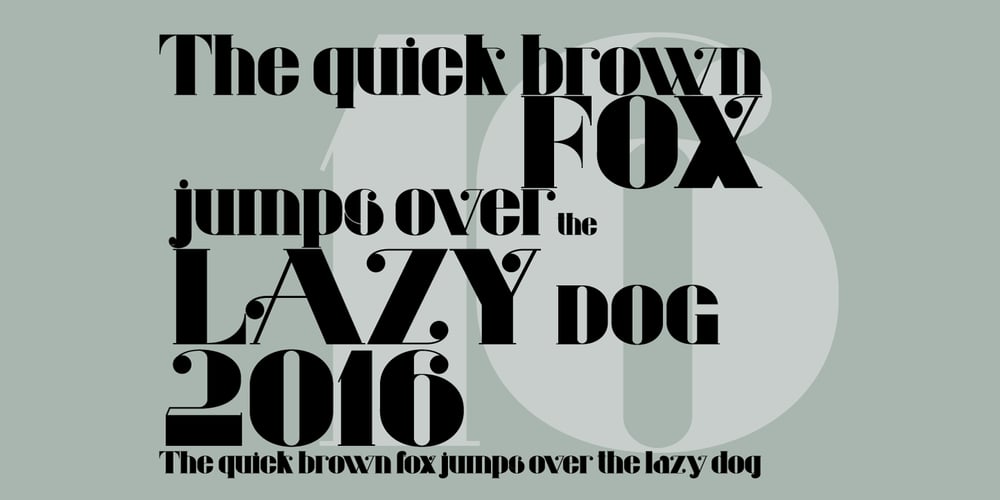
Evuschka
Evuschka font
Evuschka Font Family was designed by Petra Sucic Roje and published by Petra Sucic Roje. Evuschka contains 1 styles and family package options. A dramatic contrast between thick and thin strokes, “ball” shapes at stroke terminals, and straight hairline serifs are main Evuschka characteristics. In this font, the x-height is specifically accentuated in relation to body height. In spite of its extreme geometrical shape, Evuschka exudes fairytale romance. Belonging to decorative type fonts, it is best suited for headlines, titles, and small amounts of text in large sizes. Evuschka was selected for TDC Certificate of Typographic Excellence 2017.